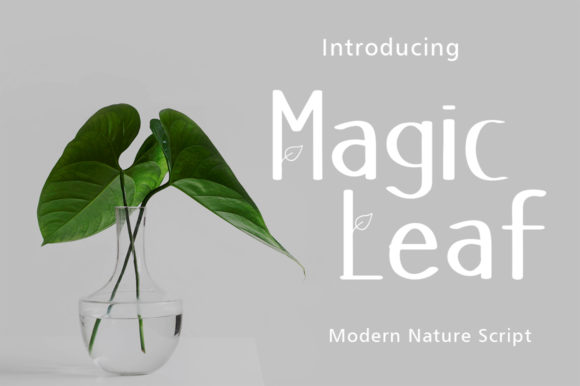
In the realm of digital aesthetics, where visual appeal reigns supreme, typography emerges as a captivating art form, capable of evoking emotions and setting the tone for any design endeavor. Meet Magic Leaf Font, a display font that embodies elegance and charm, seamlessly blending simplicity and sophistication.
Crafted by the visionary minds at rangkaiaksara, Magic Leaf Font is a testament to the power of letterforms, meticulously designed to captivate and inspire. As a display font, it revels in the spotlight, commanding attention with its distinct personality and undeniable allure.
The essence of Magic Leaf Font lies in its inviting and friendly demeanor, a quality that renders it exceptionally versatile, effortlessly adapting to a myriad of contexts. Whether you seek to elevate your branding, inject personality into your social media presence, or craft captivating headlines that resonate with your audience, Magic Leaf Font stands ready to fulfill your creative vision.
Beyond its aesthetic appeal, Magic Leaf Font possesses an intrinsic practicality, particularly suited for paragraph text. Its meticulously crafted letterforms ensure optimal readability, even in extended passages, preventing your audience from stumbling over awkward letter spacing or illegible characters. With Magic Leaf Font, your message takes center stage, reaching your audience with clarity and impact.
Unleash the transformative power of Magic Leaf Font and witness the remarkable evolution of your creative projects. Adorn your designs with an aura of elegance, captivate your audience with enchanting letterforms, and leave a lasting impression that lingers long after the final page is turned. Embrace the magic of Magic Leaf Font and embark on a typographic journey that will redefine your creative boundaries.